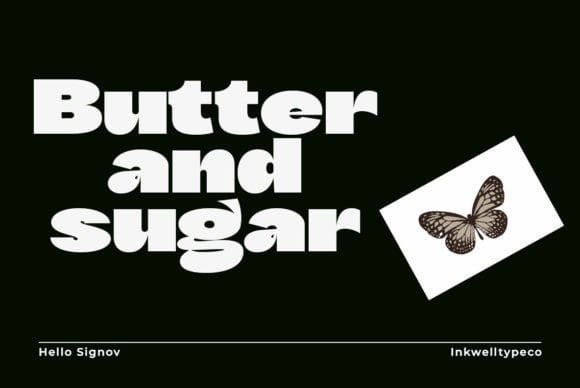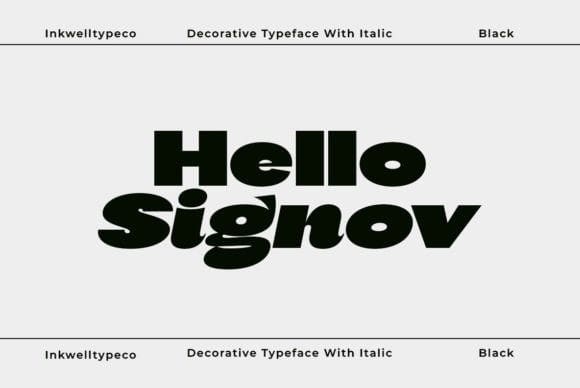
Hello Signove Font
Hello Signove Font is a classic display sans font with a bold style. It uses minimal ornate flourishes and unique letters to show its class. HelloSignove comes with an ornate italic to match. Perfect for your work, magazines or just a classy logo design.